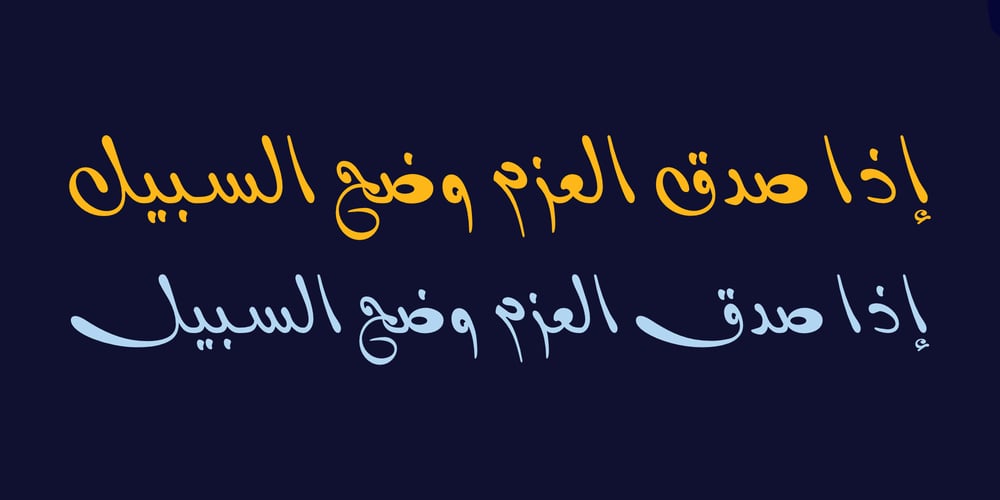
Basim Marah
Basim Marah font
Basim Marah Font Family was designed by Hasan Abu Afash, Basim El-Mahdi and published by Hiba Studio. Basim Marah contains 2 styles and family package options. Basim Marah is a distinctive Arabic display typeface, ideal for titles and graphic projects. Inspired by the simple lines of free-style calligraphy, it offers a modern and elegant touch to your designs. This typeface is the result of a collaborative effort: designed and drawn by Basim Salem Al Mahdi from Iraq, and digitalized by Hasan Abu Afash from Palestine. In November 2008, Basim Marah received an upgrade in collaboration with award-winning Arabic type designer Mirjam Somers, transitioning to the DecoType font format for use in WinSoft Tasmeem, that was bundled with InDesign CS4.